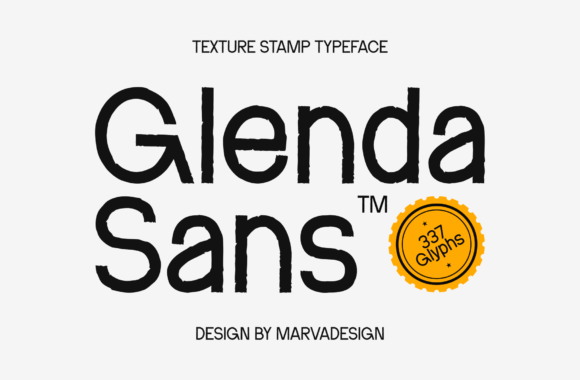
Introduction to Glenda Sans Font
Introducing **Glenda** Sans is a textured stamp-style font that embodies a vintage and classic aesthetic.
Its design features a weathered, hand-pressed look, reminiscent of old printing techniques The font’s uneven edges and subtle imperfections give it an authentic, worn appearance, making it ideal for projects that seek to evoke a sense of nostalgia or timeless elegance.
Key Features of Glenda Sans Font
Why Choose Glenda Sans Font?